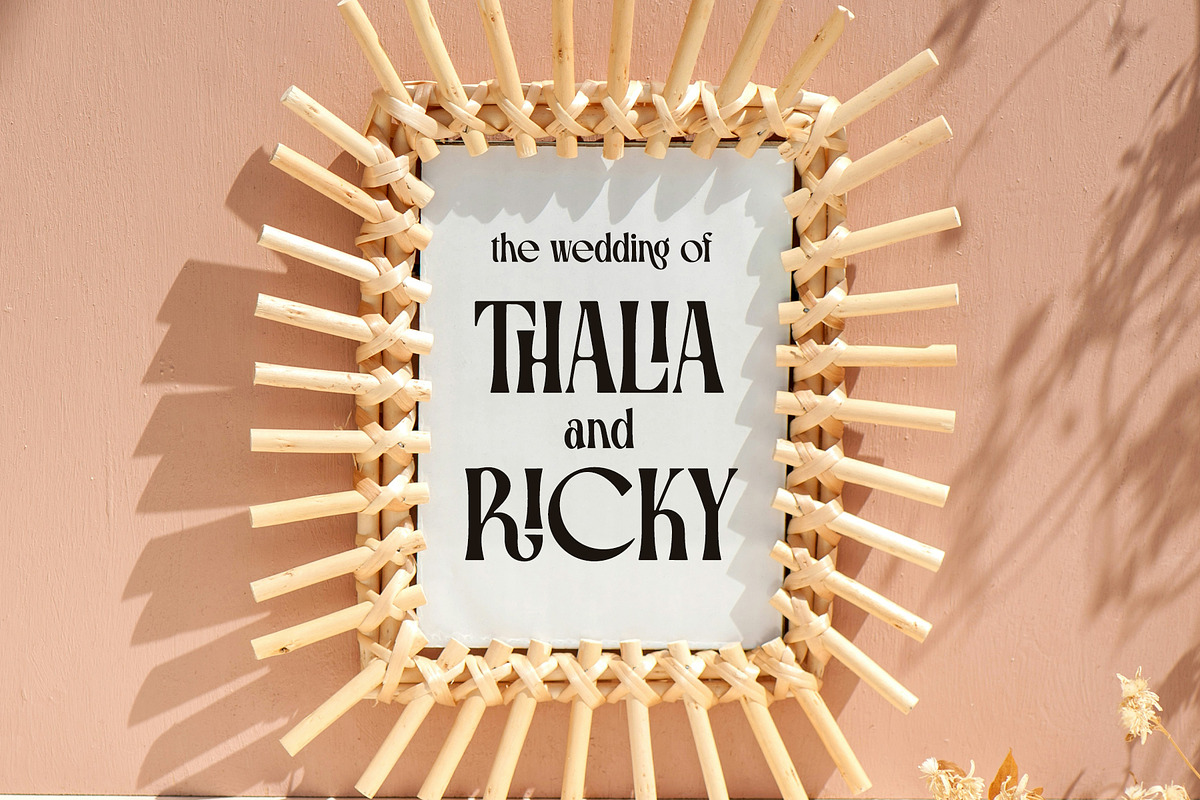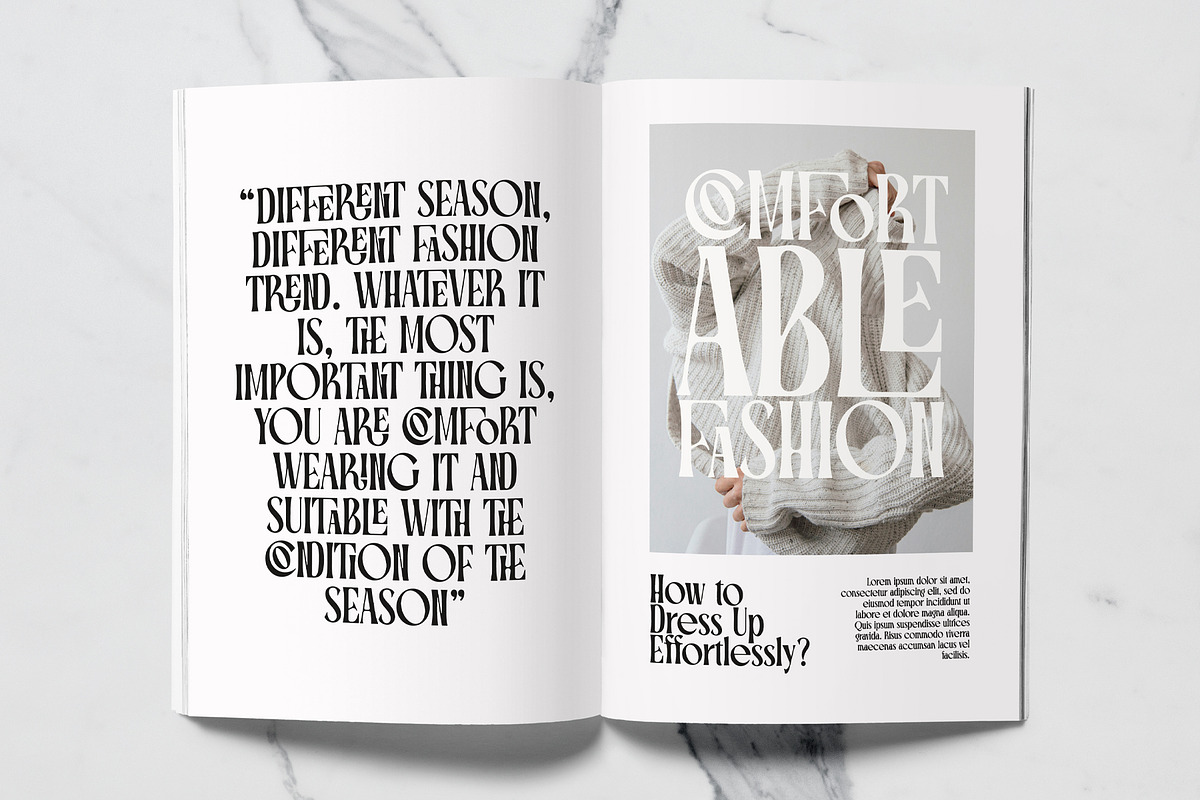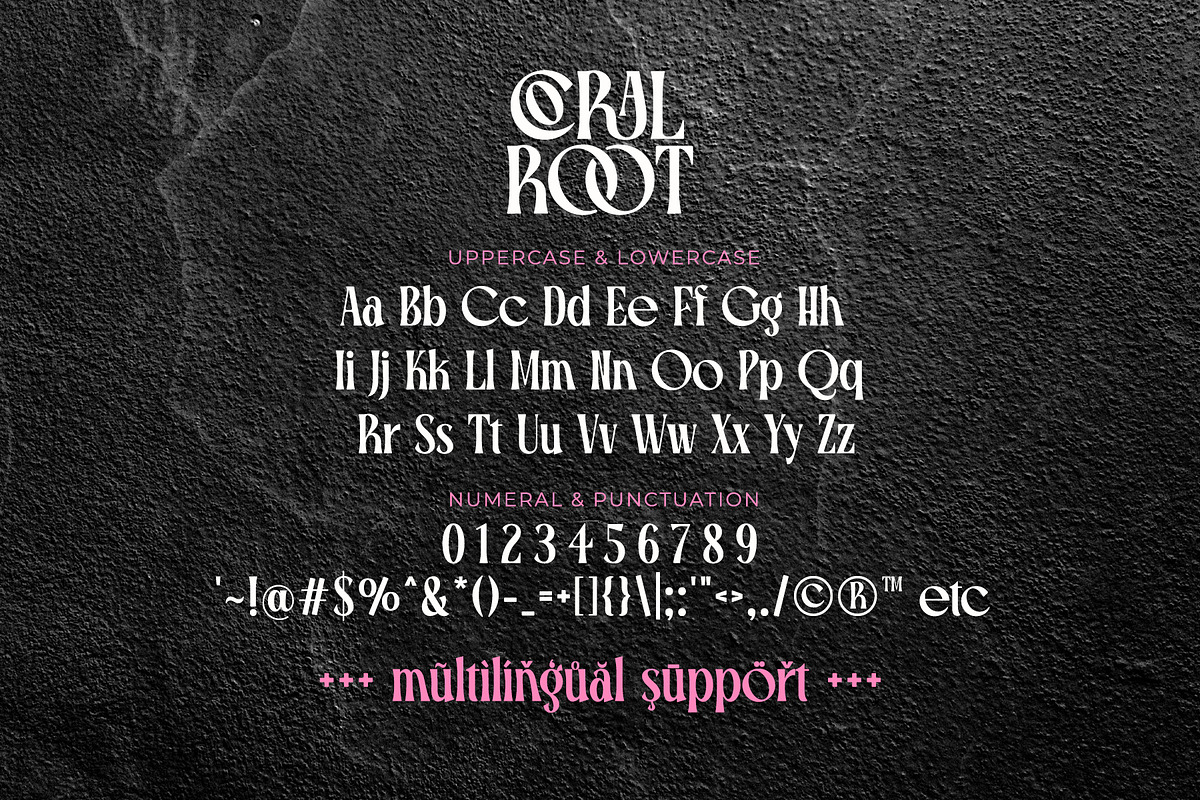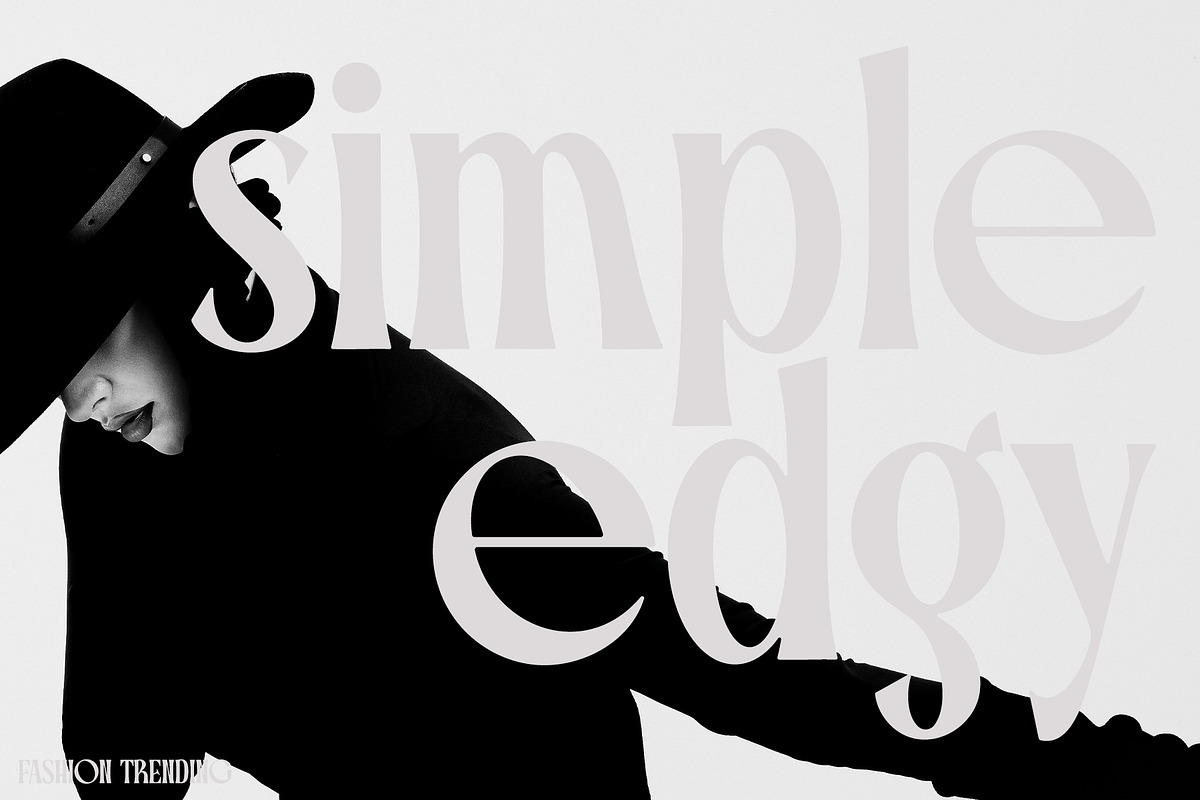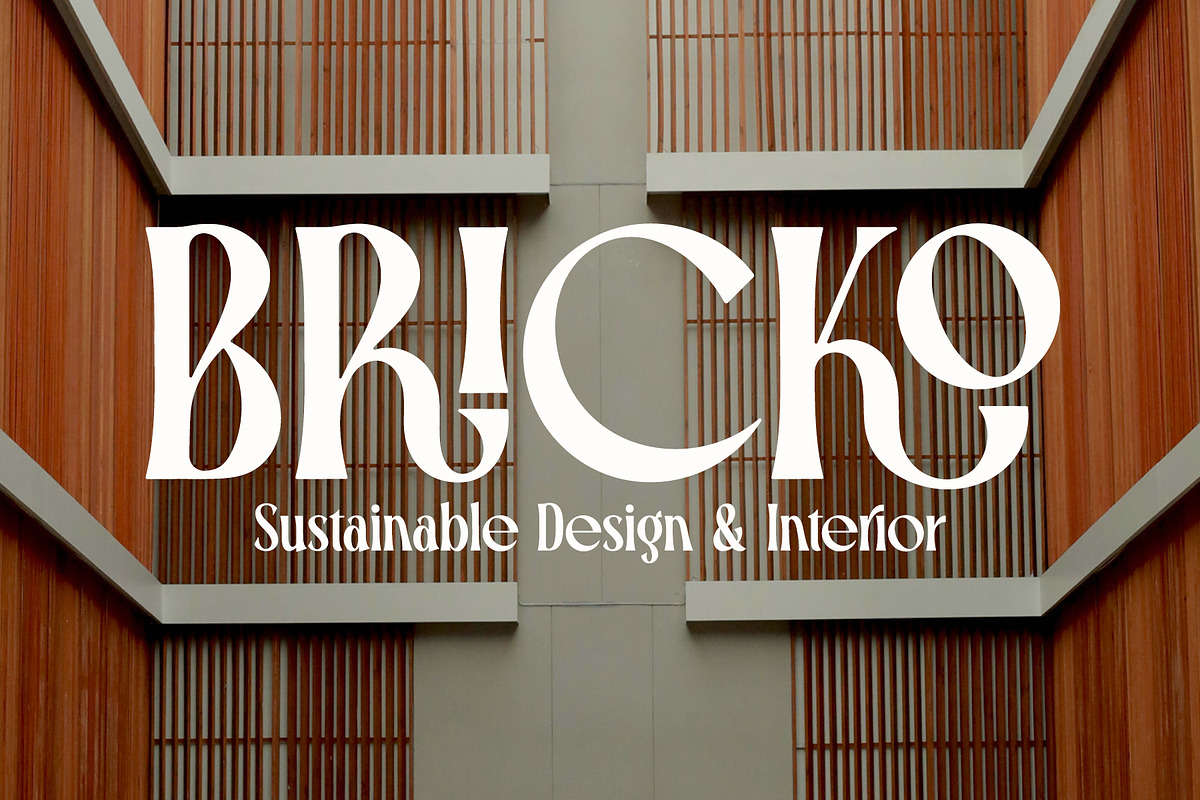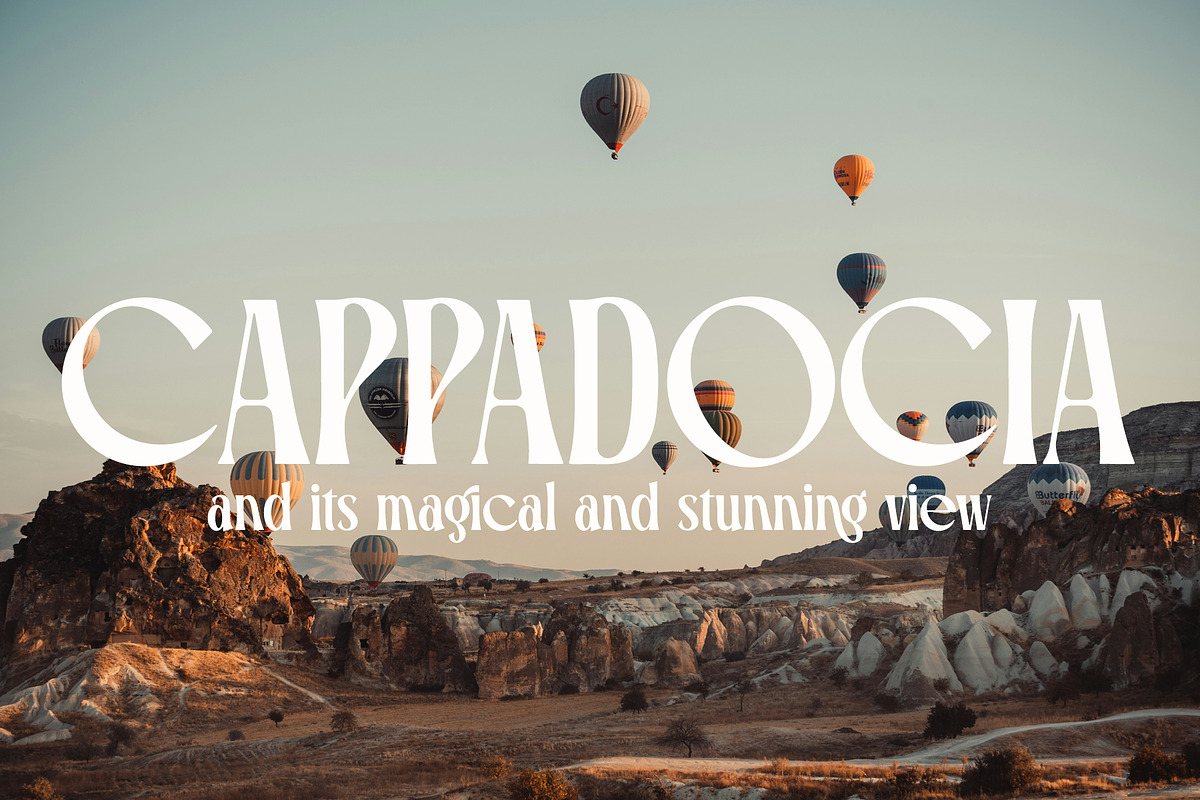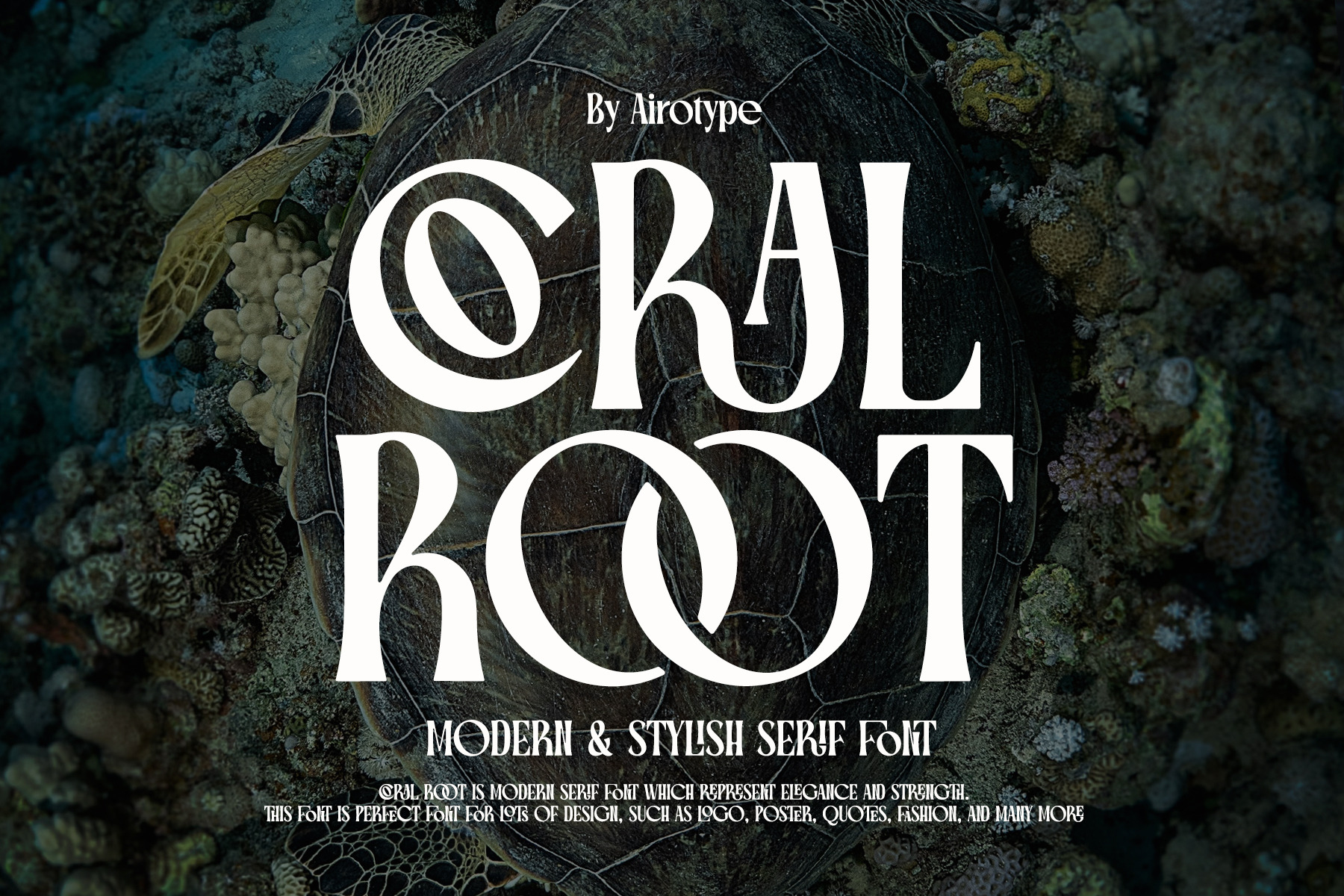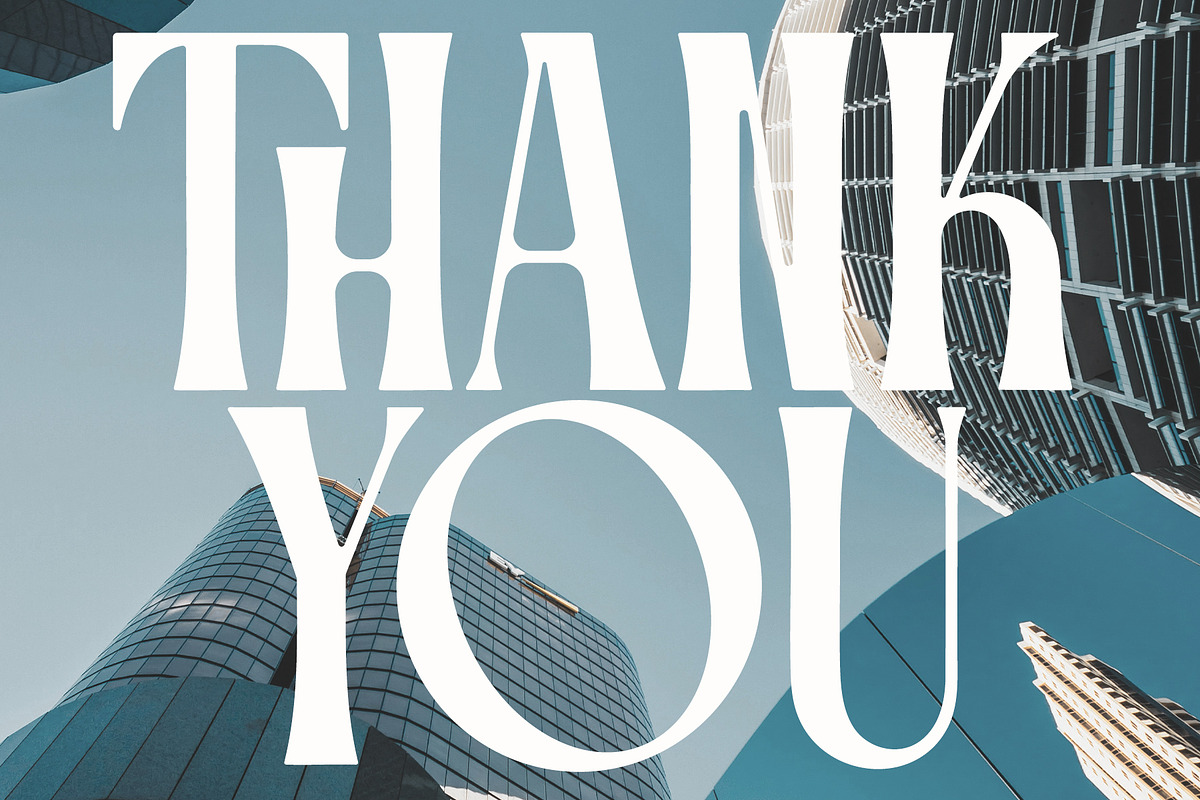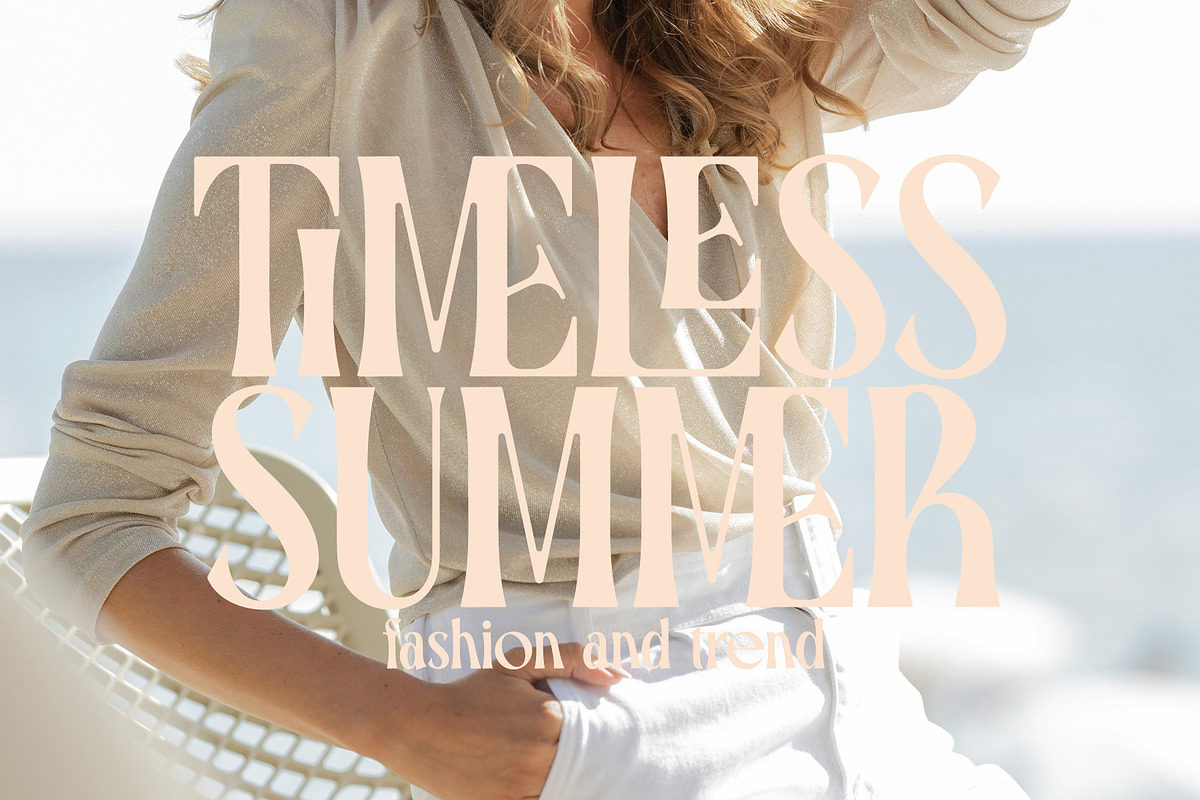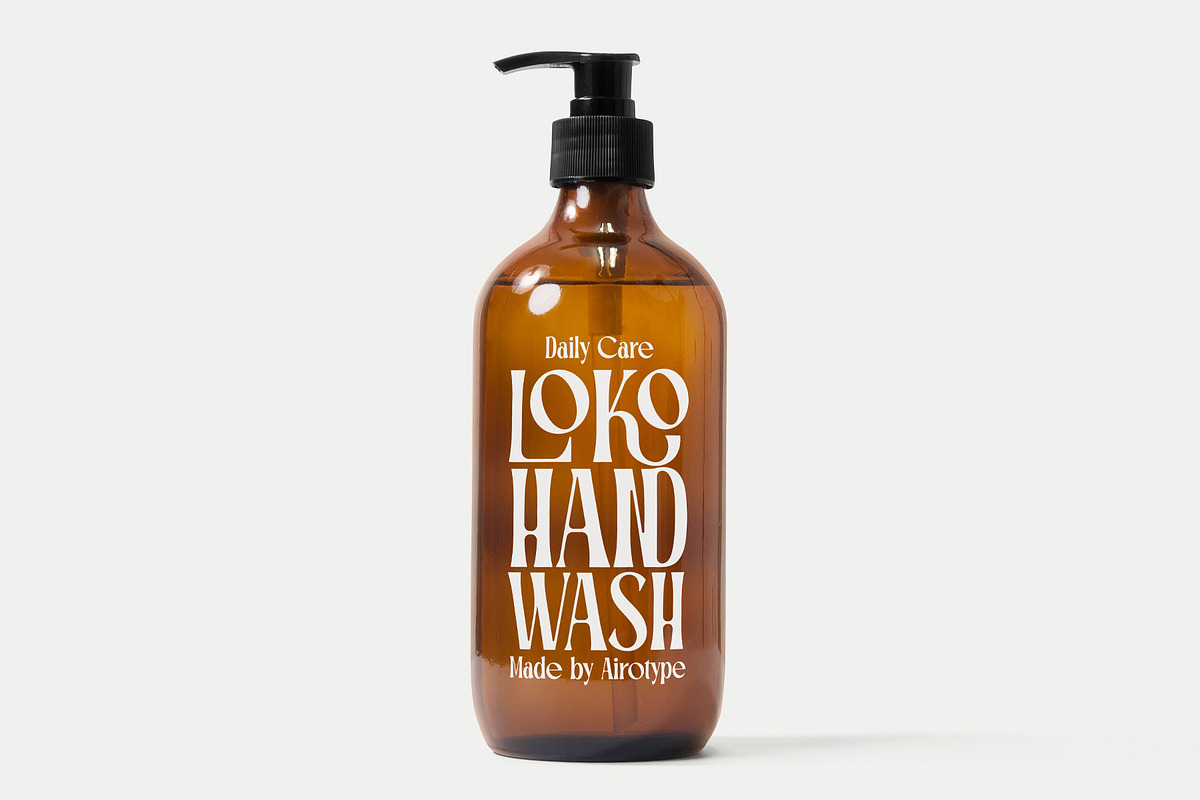
Coral Root - Stylish Serif Font
Coral Root is modern and elegant serif font. It is fancy, classy, and radiating luxurious looks.
Coral Root has few uppercase ligatures to give more stylish shape. Make sure you activate ligature features in your design software.
This font is elegant font for any projects with modern classy vibes, such as logo, crafting, wedding invitation, poster, branding, photography, sticker, sublimation, quotes, and many others.
- Uppercase and Lowercase (include uppercase ligatures)
- Most Multilingual Accent